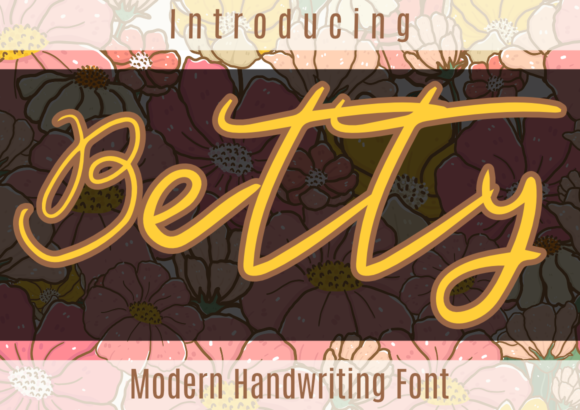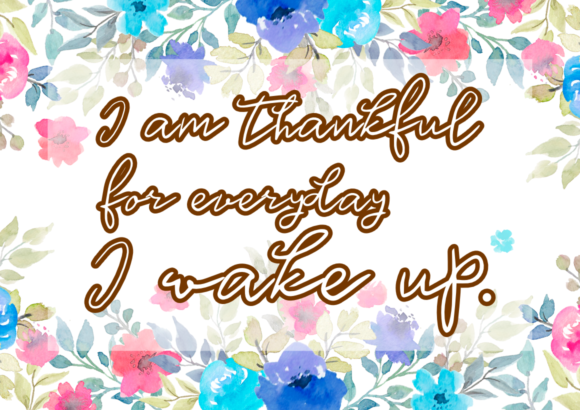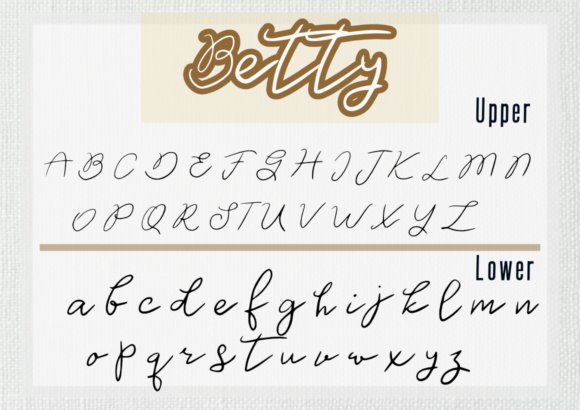
Betty Font
About Betty Font
Betty is a cute and modern handwritten font with an incredibly friendly feel. This enchanting handwritten font will turn any creative idea into a true standout. Whether you’re looking for fonts for Instagram or calligraphy scripts for DIY projects, Betty will fit all your ideas!